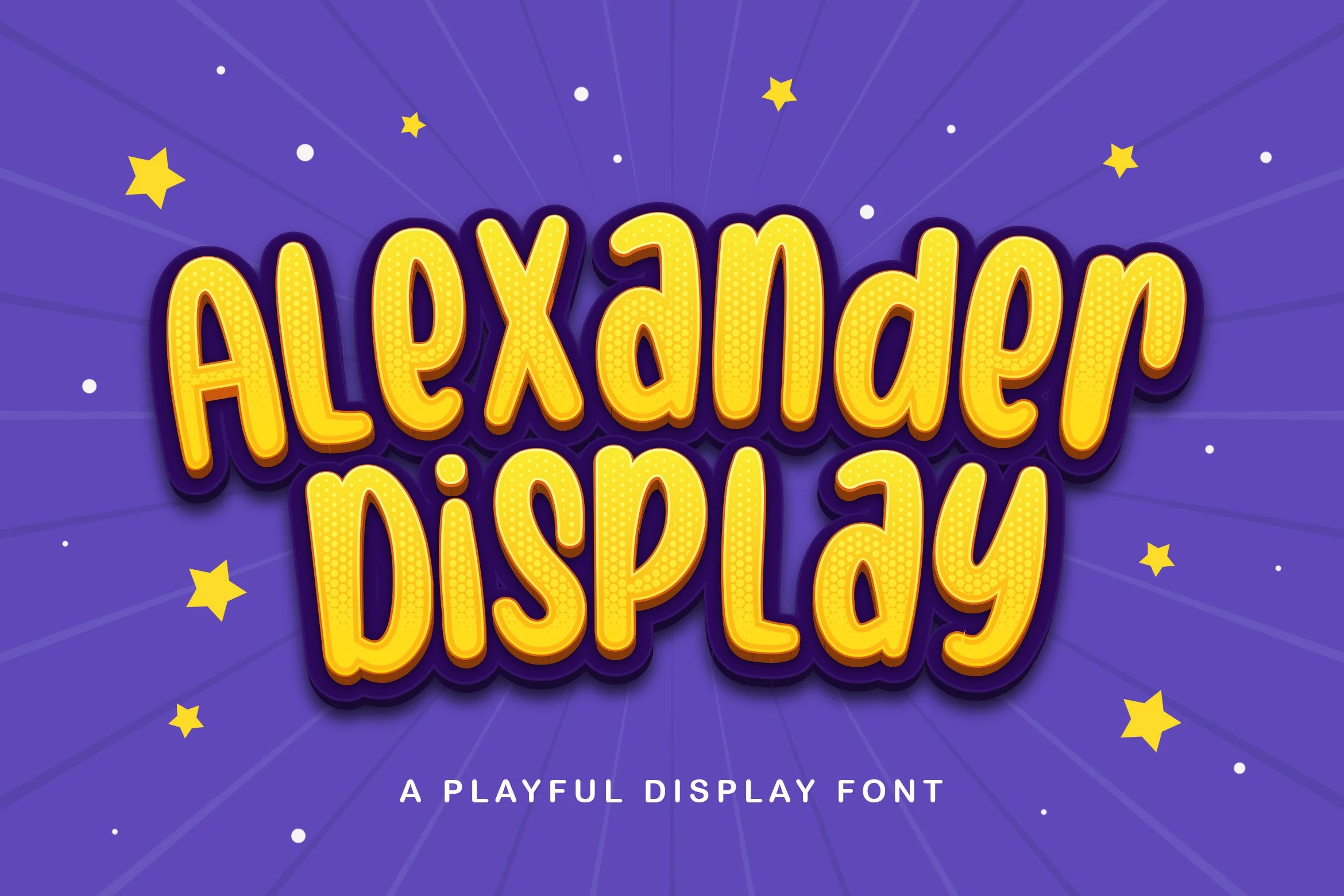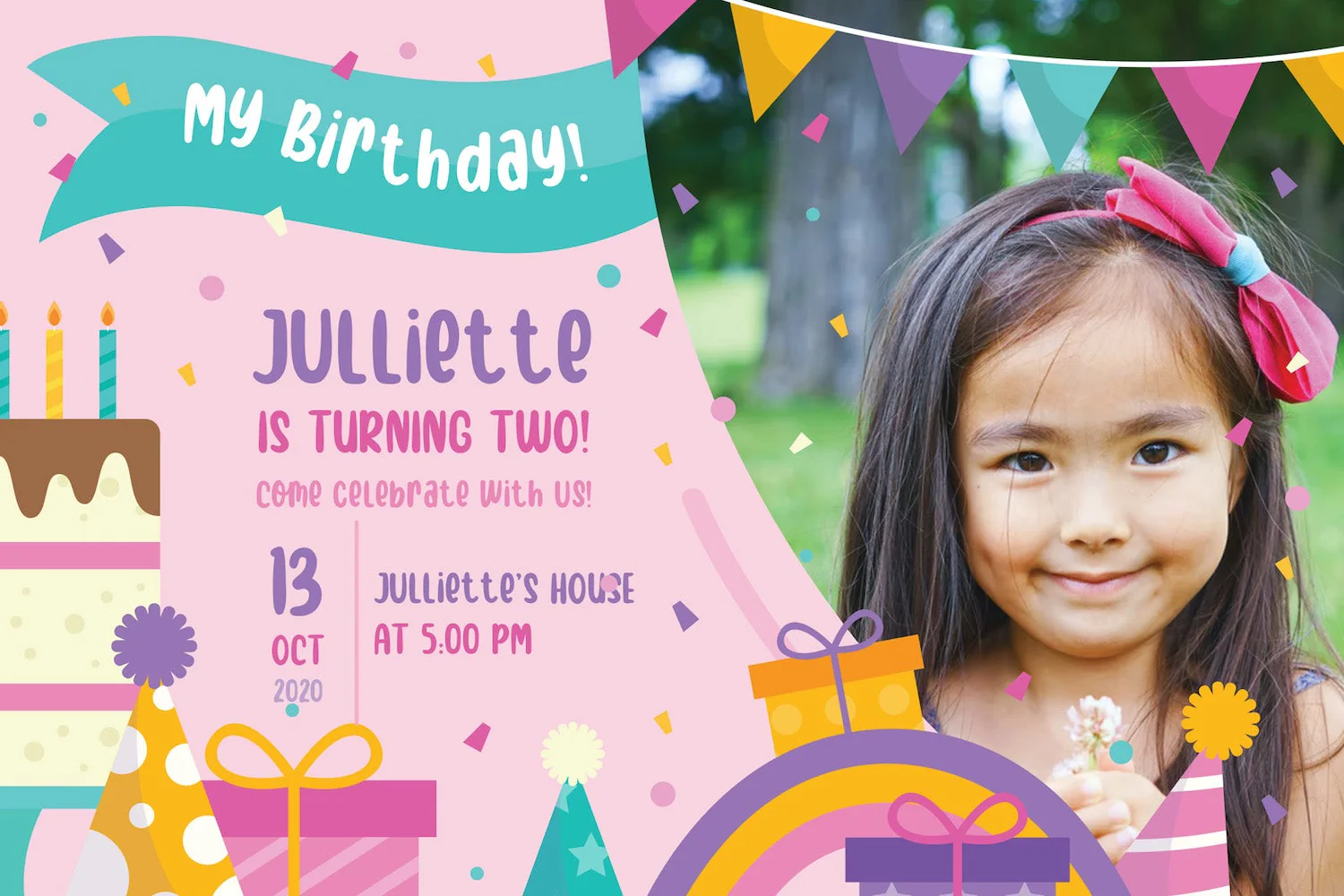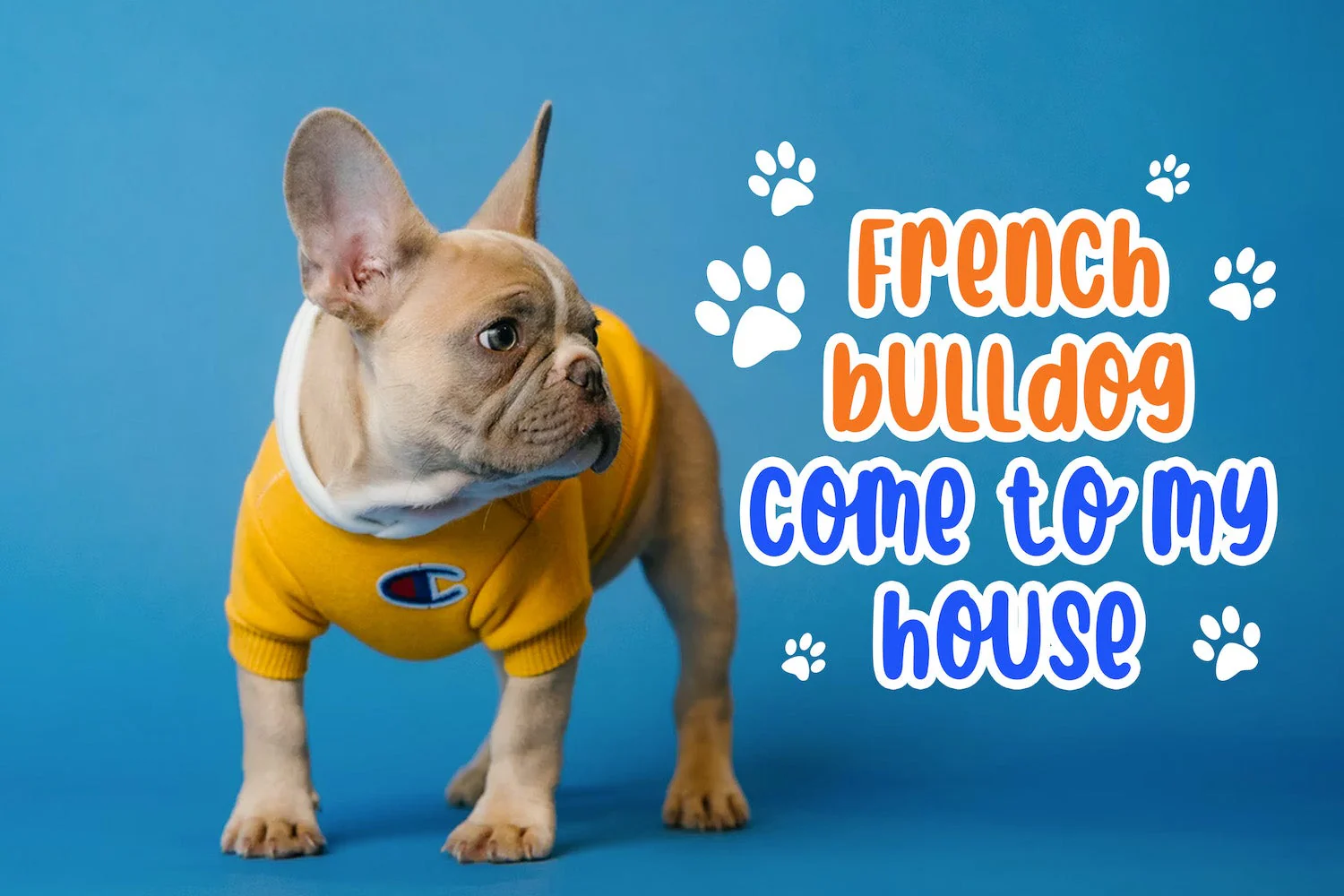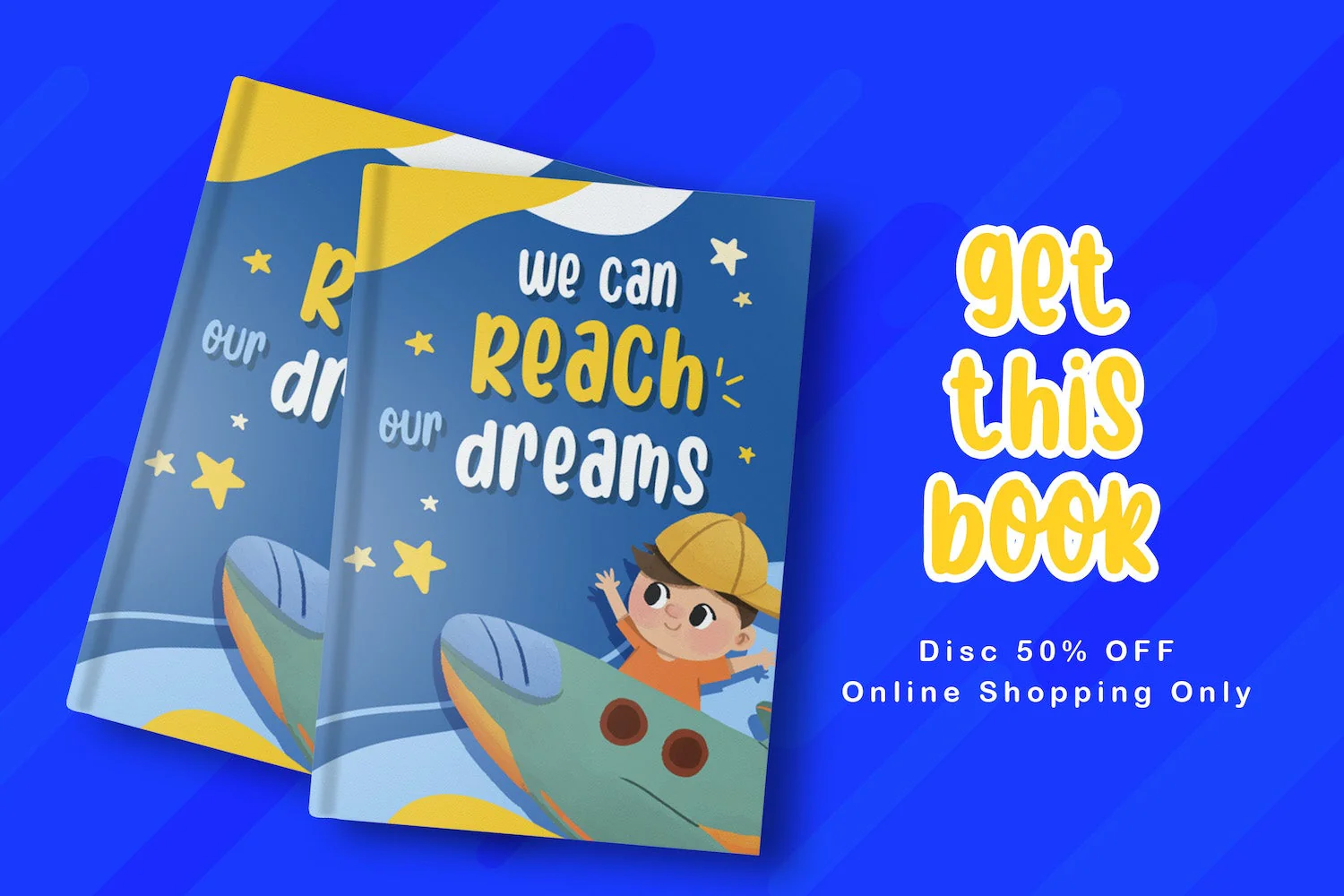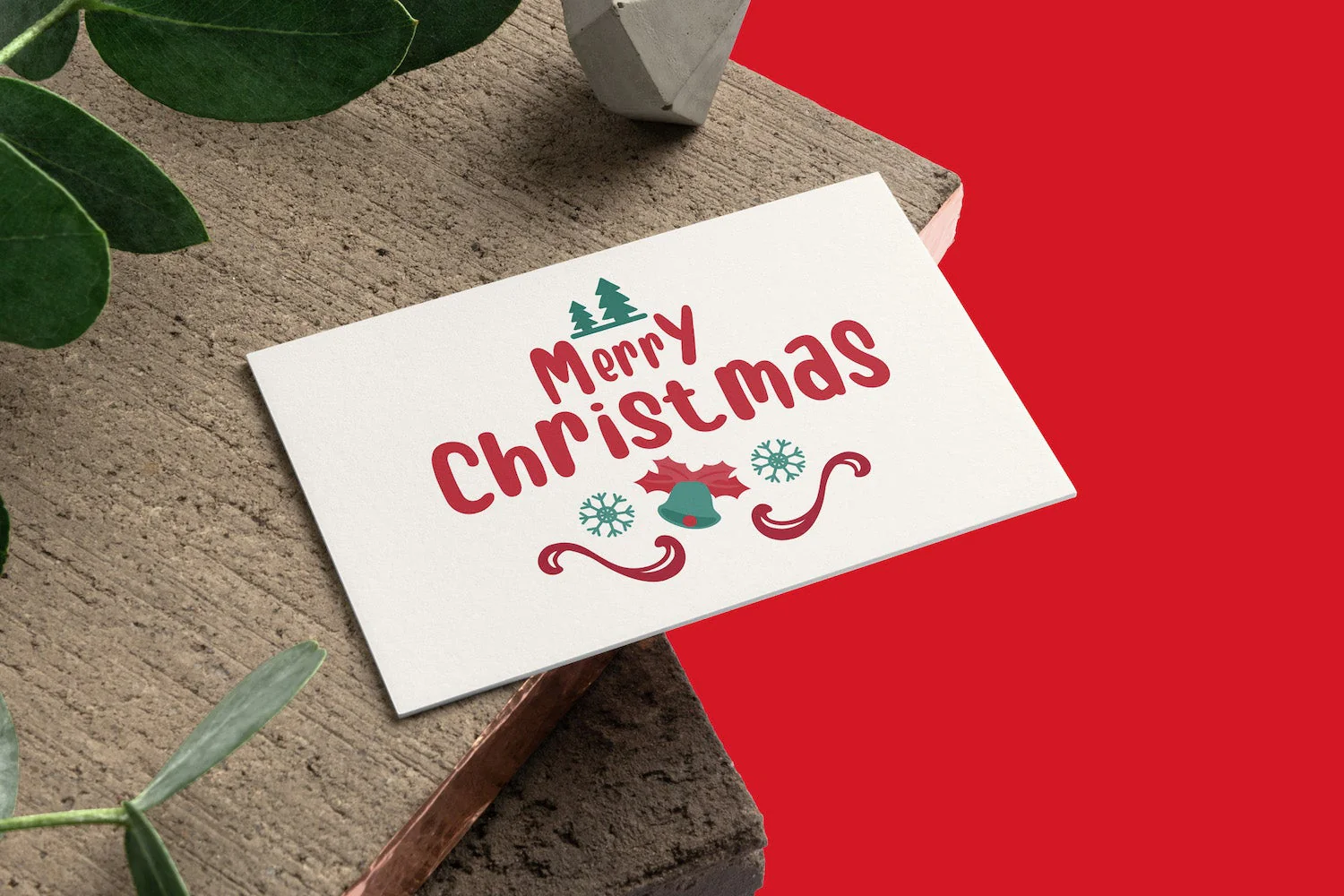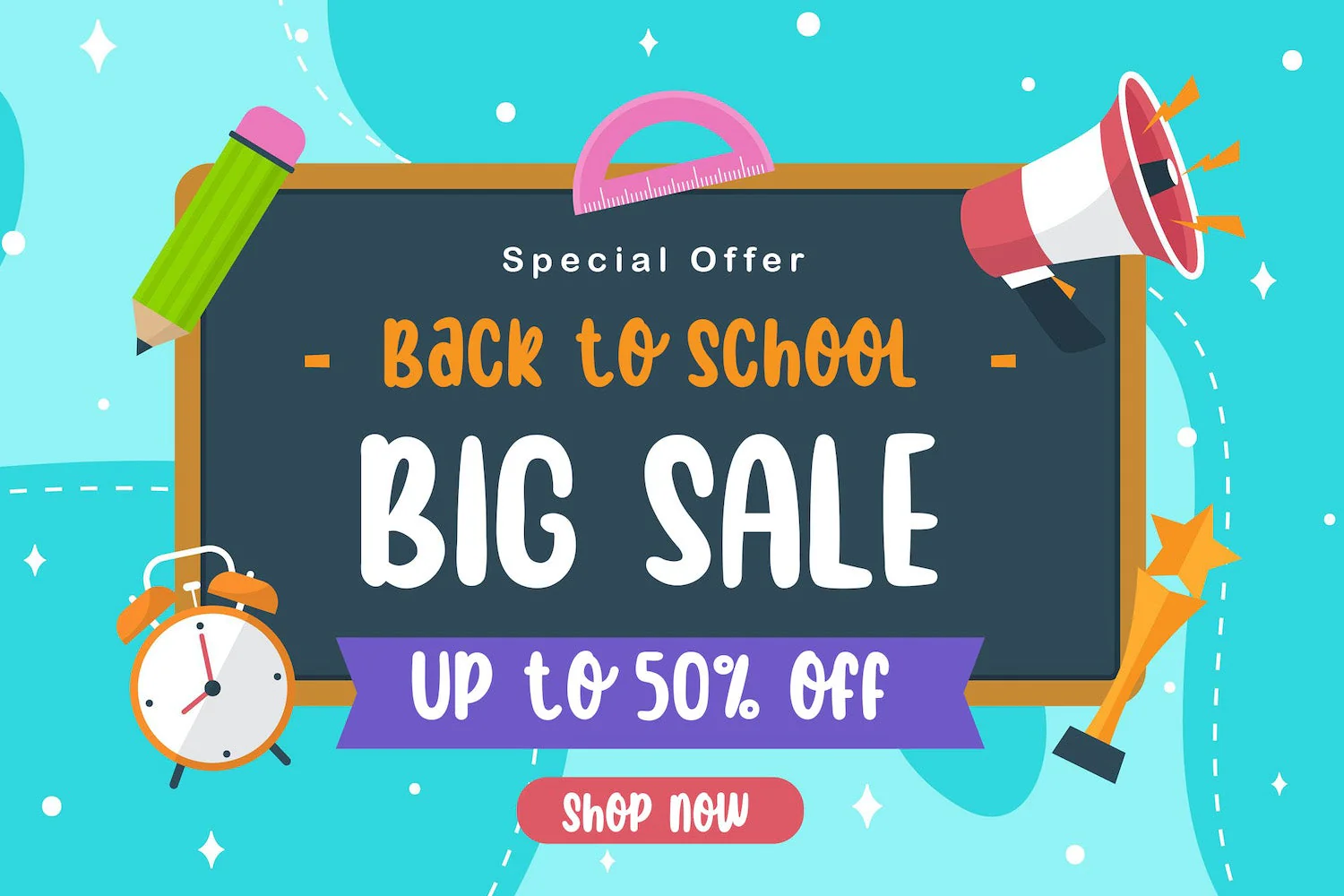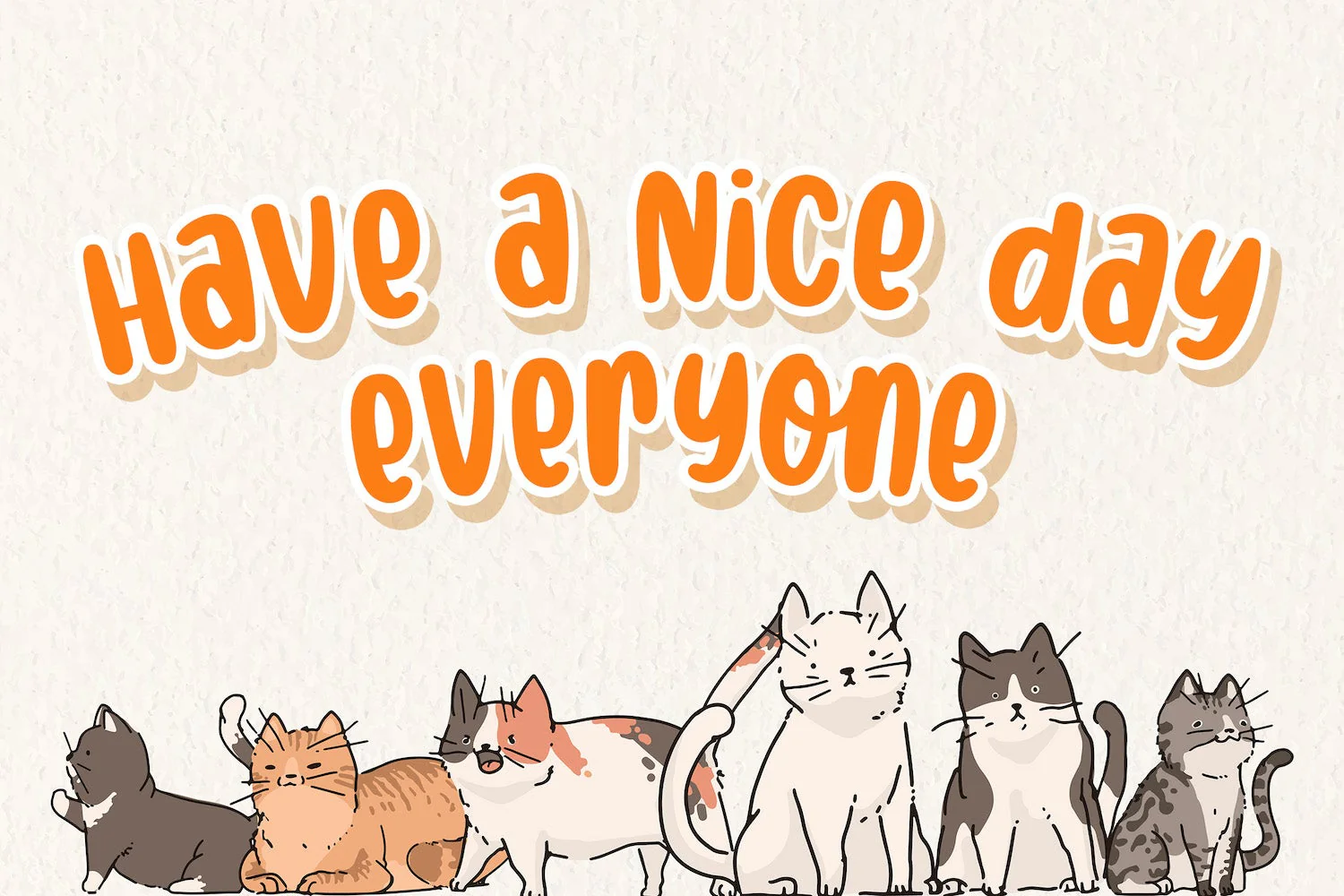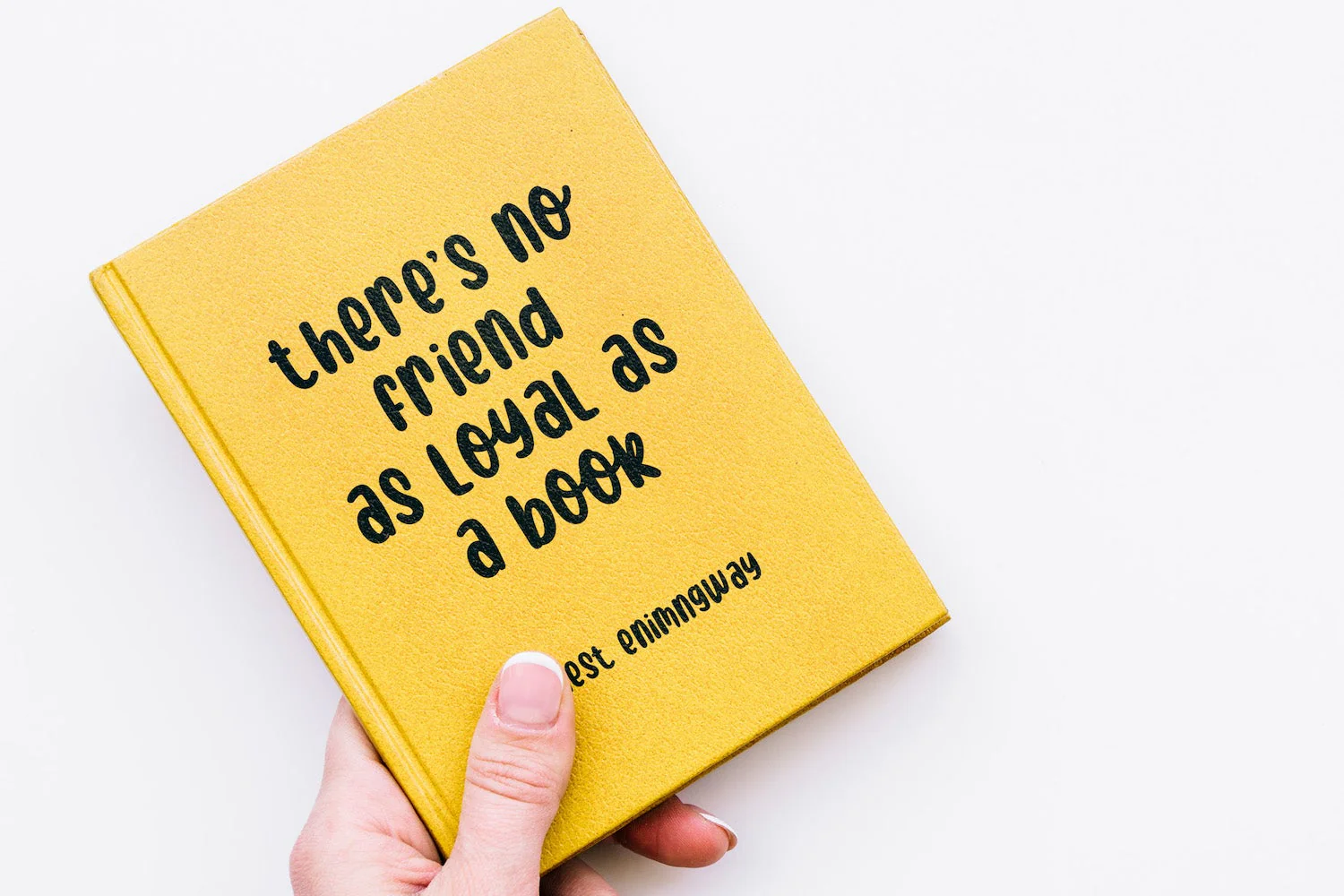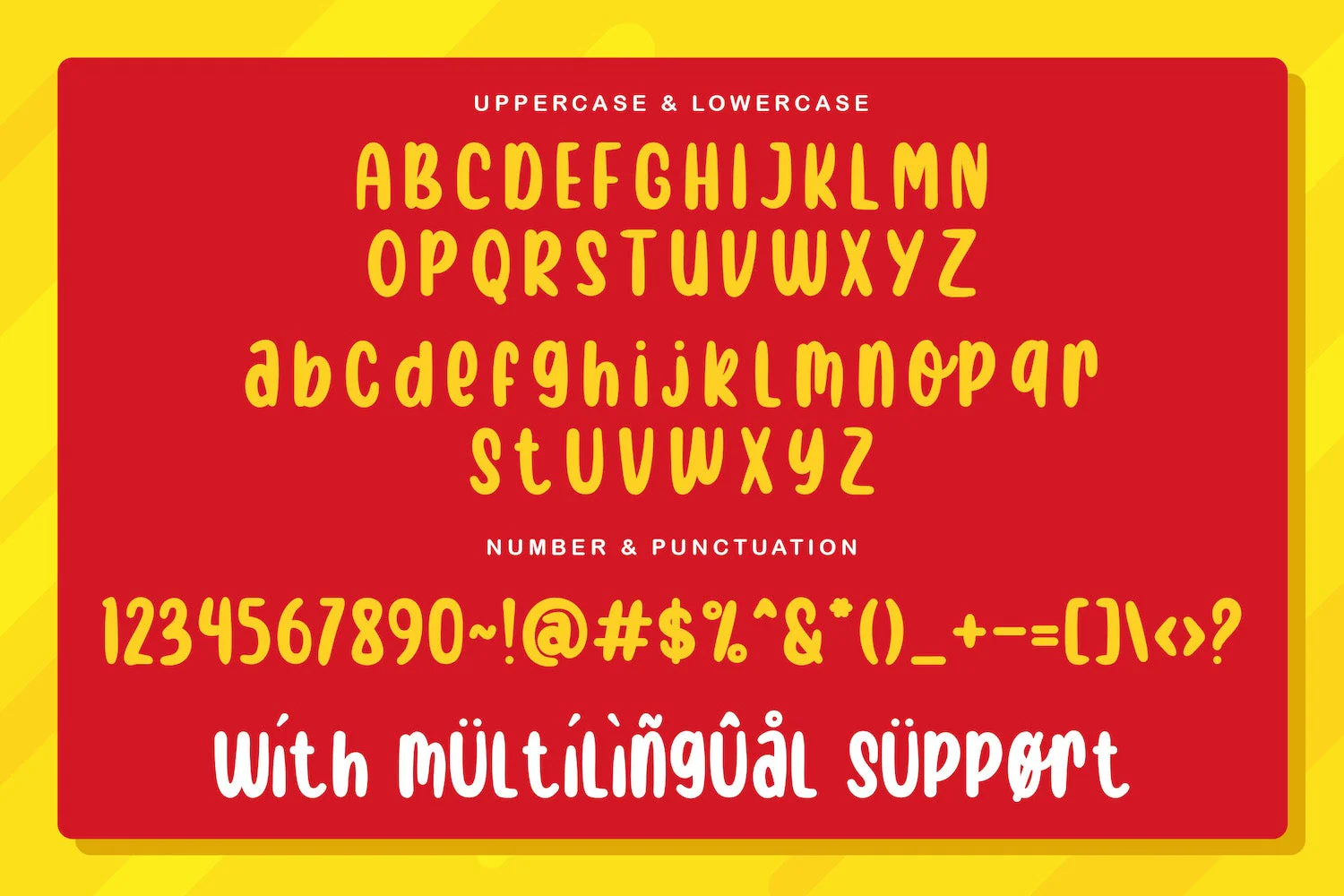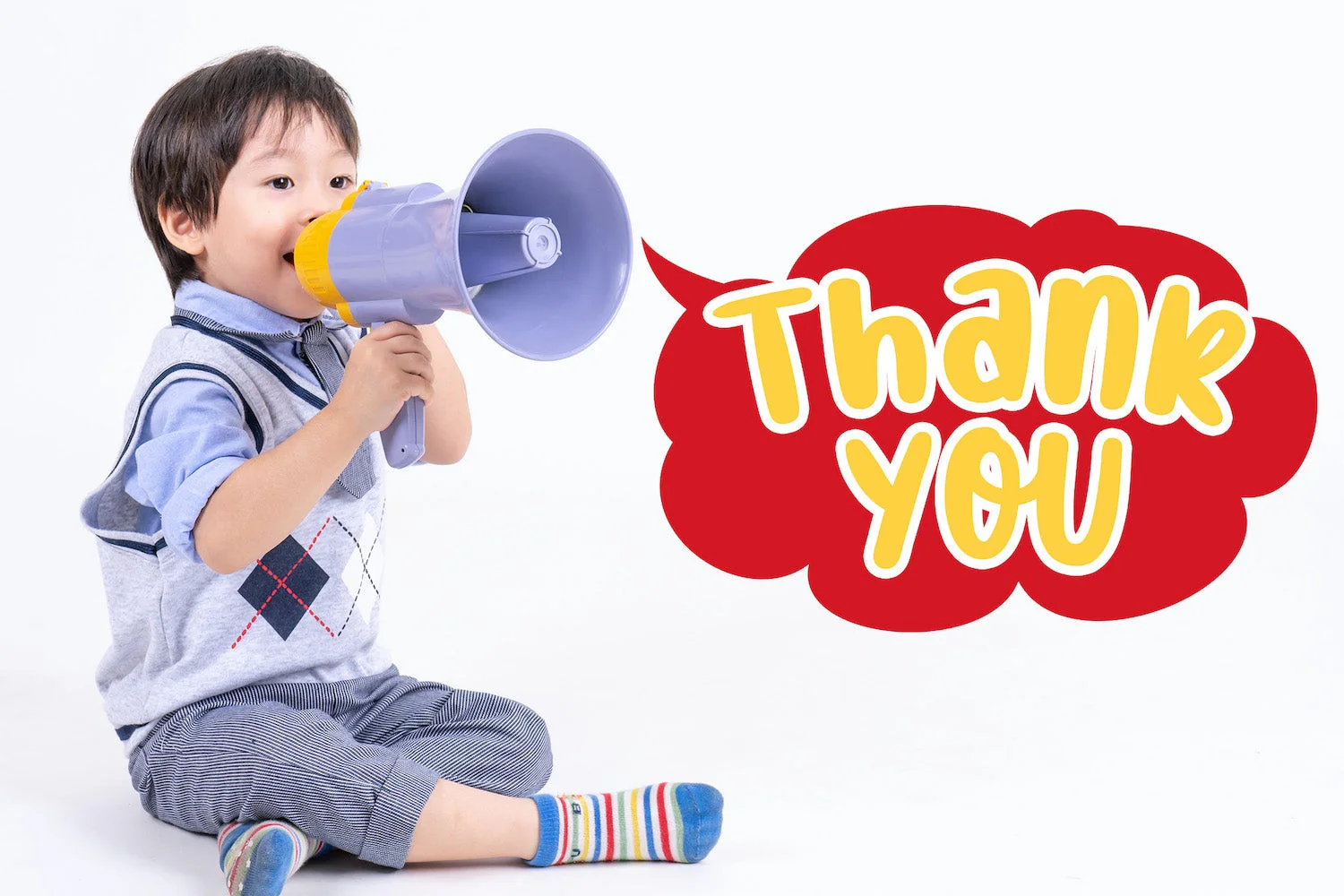
Alexander Display - Playful Display Font
Introducing Alexander Display - Playful Display Font
Alexander Display is a fun display font. Playful and fresh, this font will be a hit for each of your children or school projects!
Introducing Alexander Display - Playful Display Font
Alexander Display is a fun display font. Playful and fresh, this font will be a hit for each of your children or school projects!